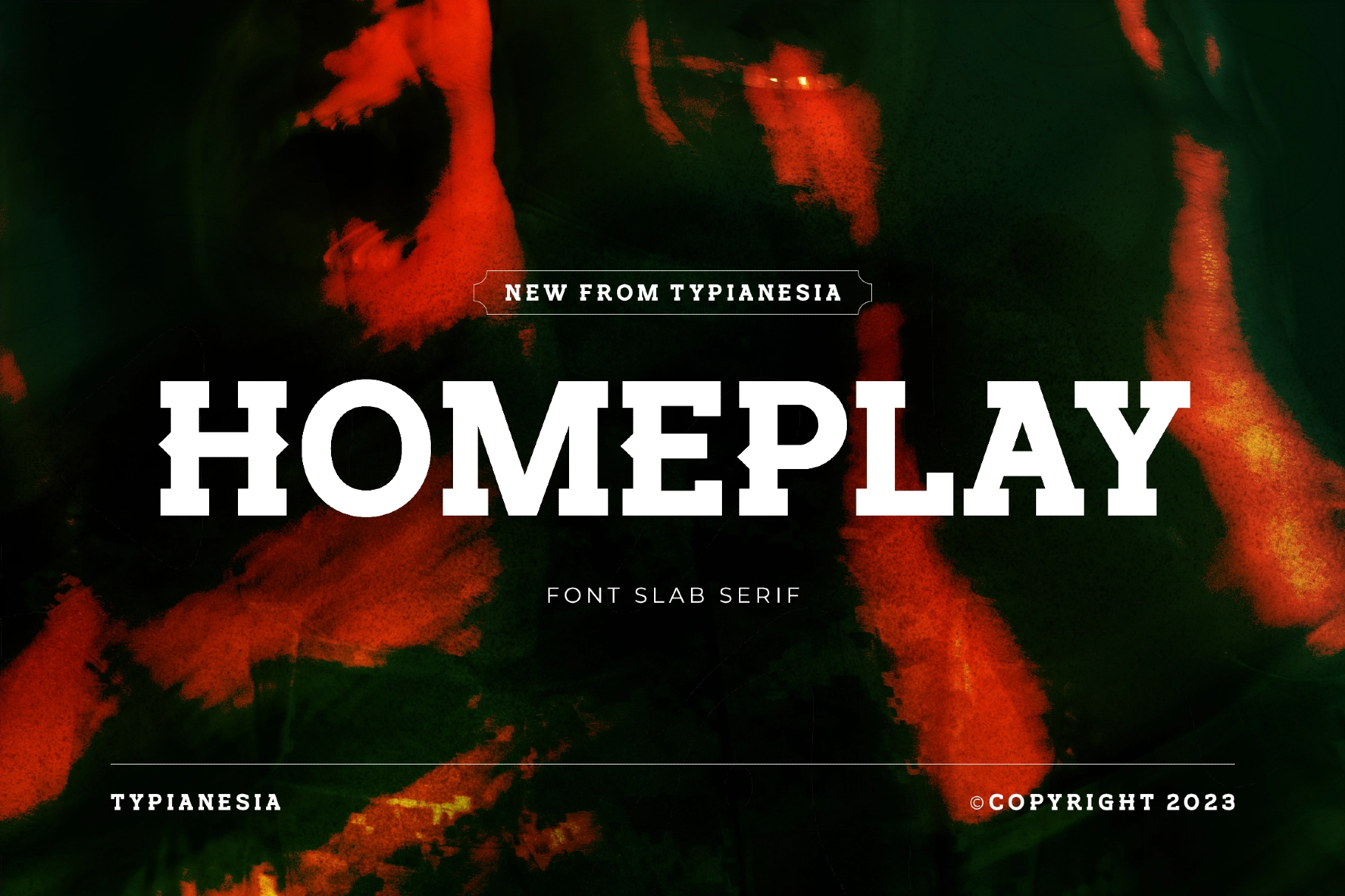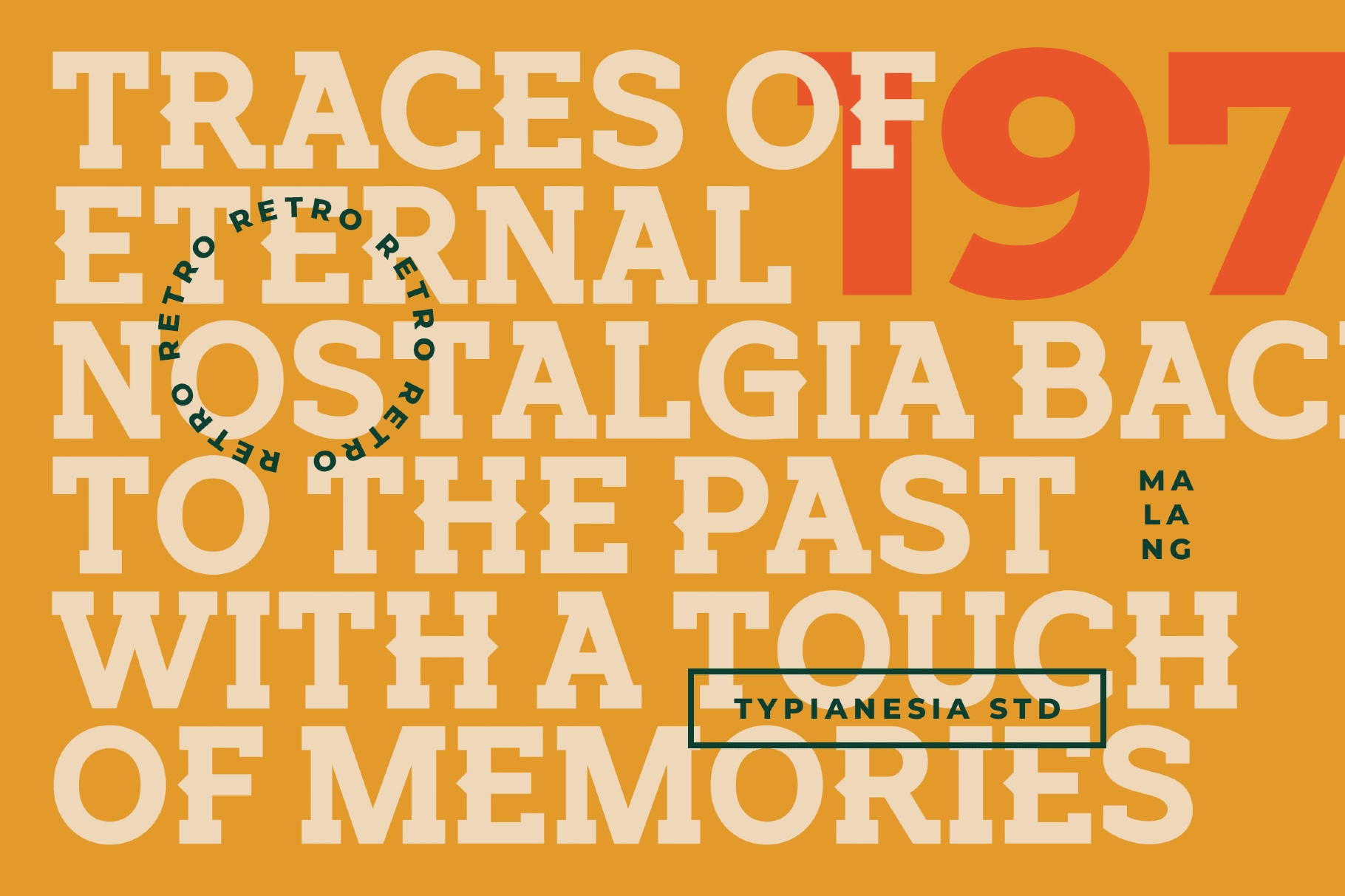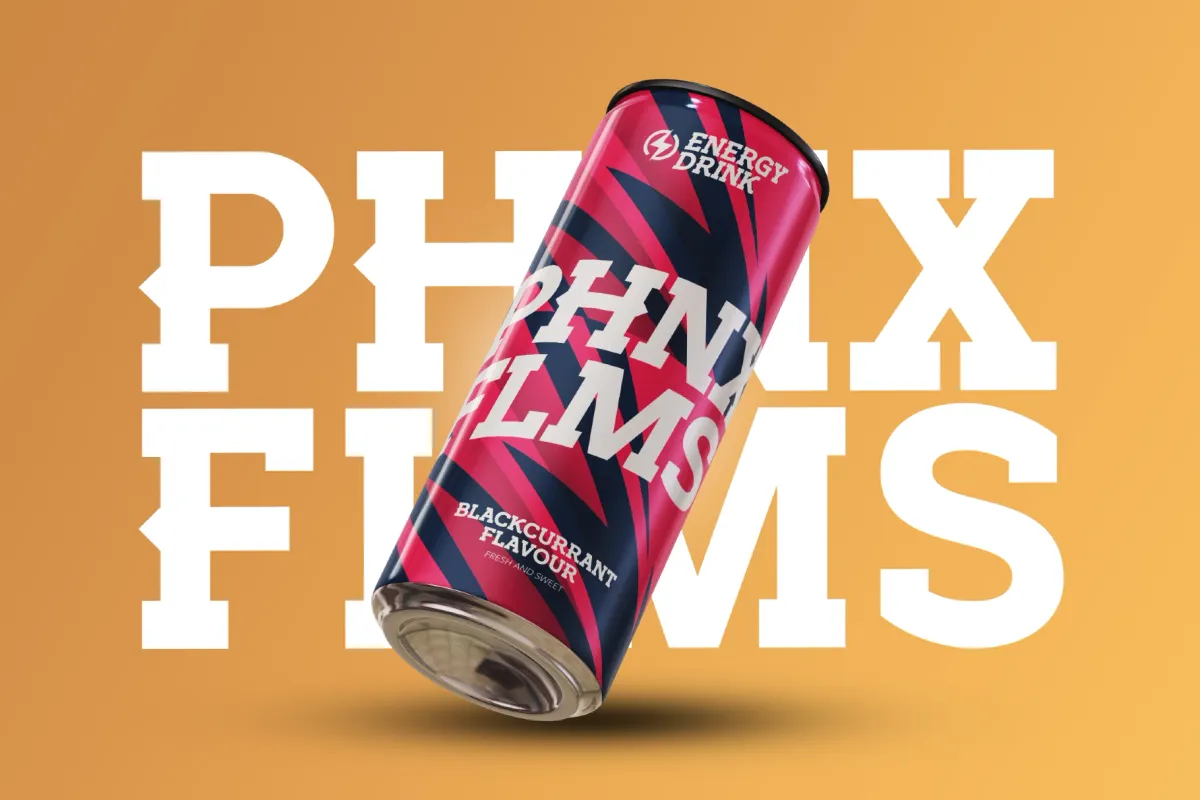
Homeplay - Vintage Slab Serif Font
Homeplay - Vintage Slab Serif Font is a bold and distinctive slab serif typeface designed to deliver strength, character, and timeless appeal. With its solid letterforms and confident structure, Homeplay conveys reliability while maintaining a modern, refined presence. The strong slab serifs give it a classic vintage tone, making it both powerful and sophisticated.
Perfect for branding, editorial layouts, posters, packaging, social media graphics, and web design, Homeplay adds depth and authority to any visual project. Its unique ligatures enhance typography with seamless character connections, creating a memorable and visually engaging look. Homeplay is an ideal choice for designers seeking a balanced blend of boldness, vintage charm, and contemporary style.
• Uppercase & Lowercase Letters
• Numerals
• Punctuation Marks
• Distinctive Ligatures
• Slab Serif Style